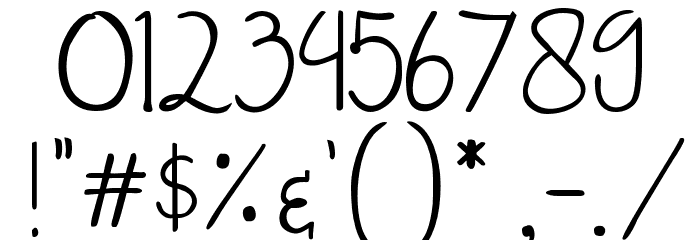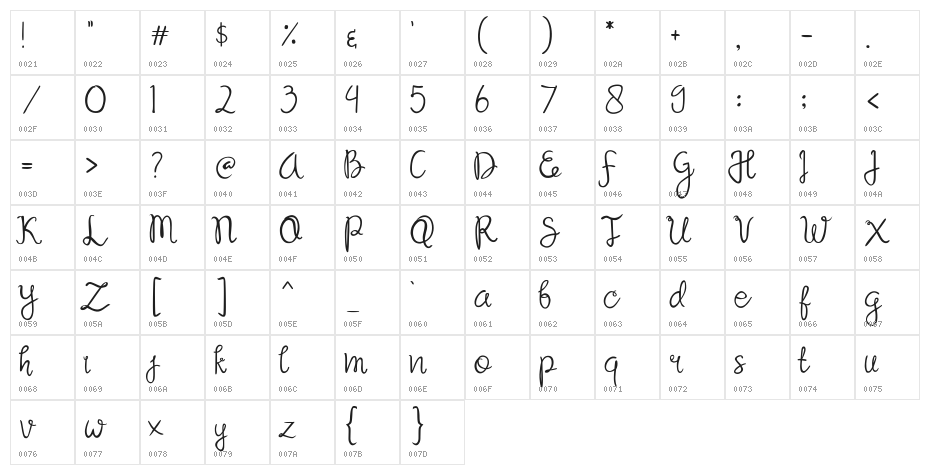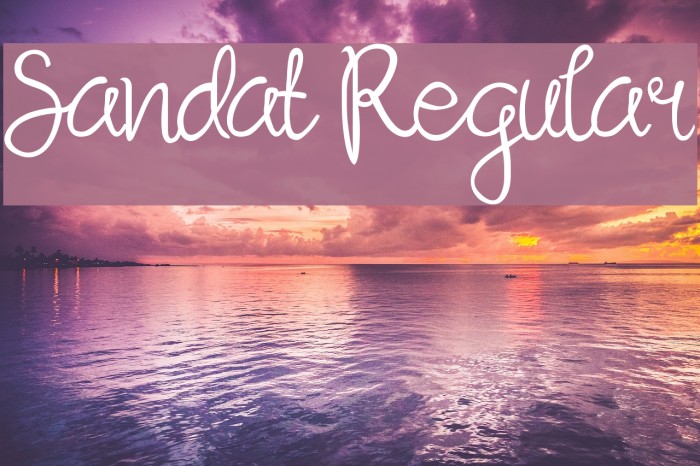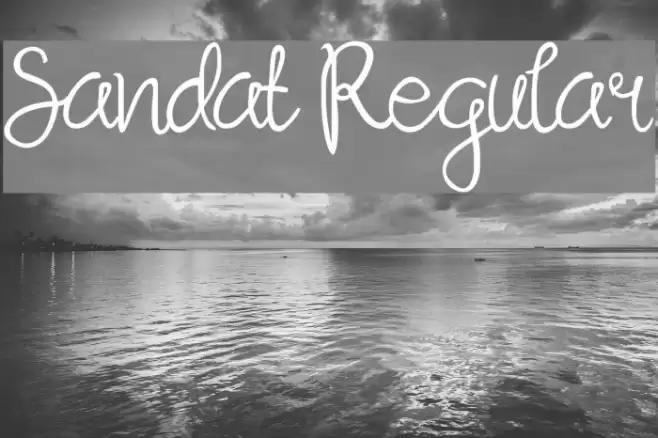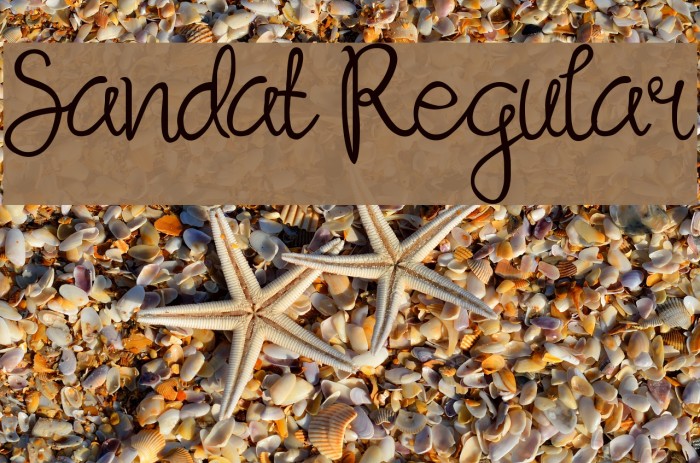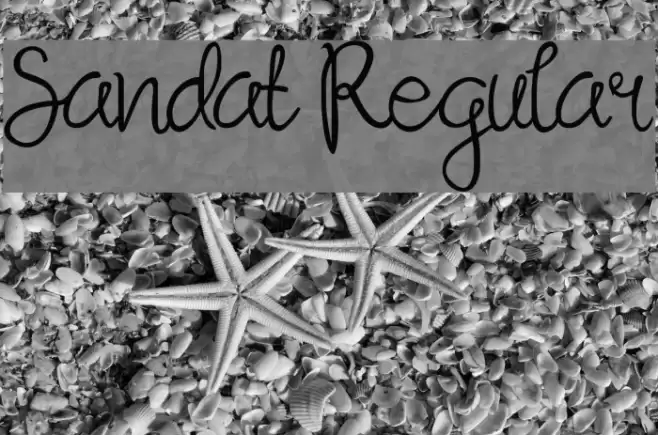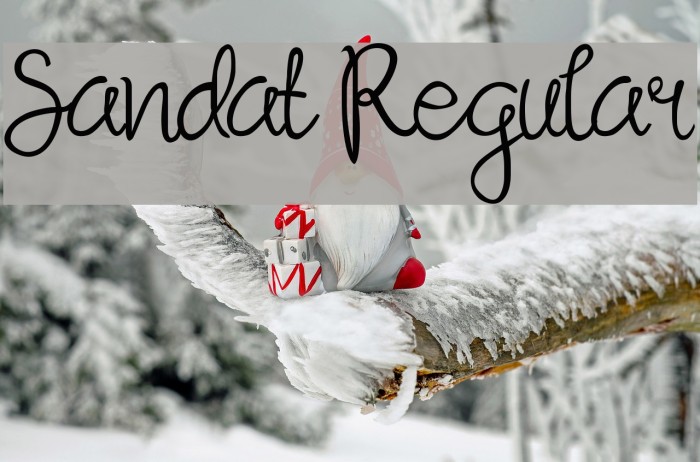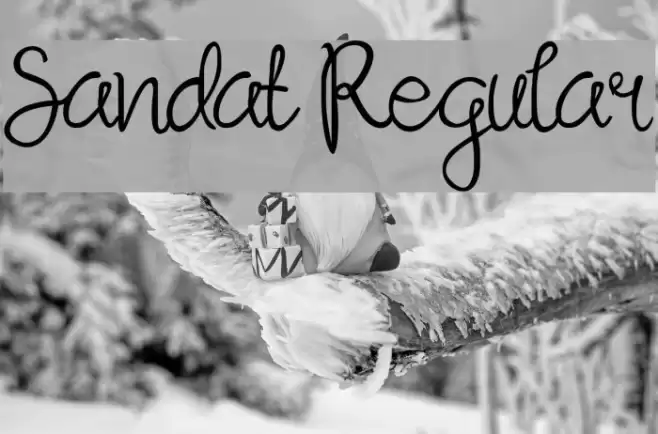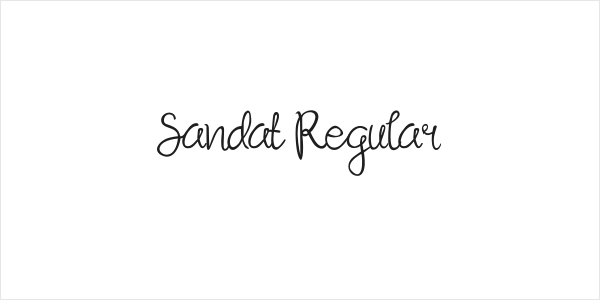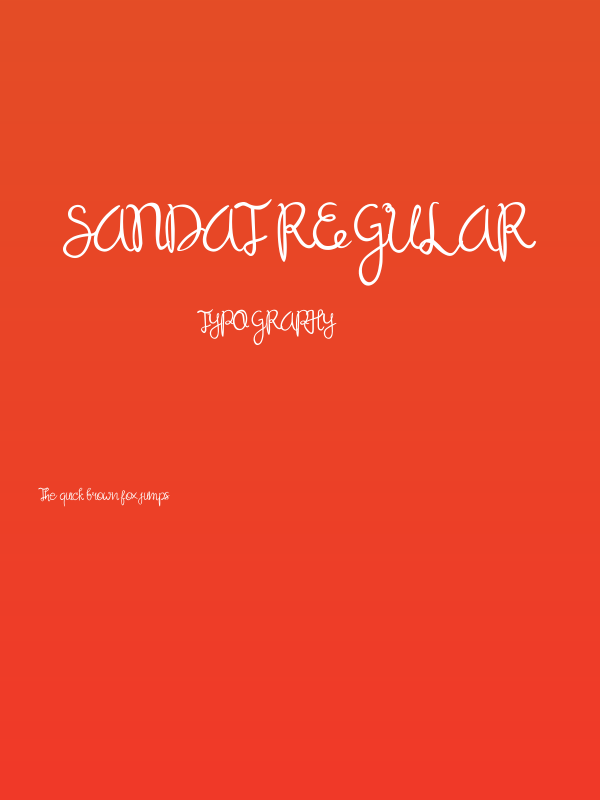
Sandat Regular Font
Sandat Regular Description
This font exudes a playful and whimsical charm with its handwritten style. The letters are fluid and connected, giving it a cursive appearance that is both elegant and casual. The uppercase letters maintain a consistent height, while the lowercase letters vary slightly, adding to the font's dynamic feel. The numbers are clear and easy to read, with a slight slant that matches the overall style. Special characters are included, maintaining the same playful aesthetic. The strokes are consistent in thickness, providing a medium contrast that enhances readability without sacrificing style.
| Proposed Projects | Ideal for greeting cards, invitations, personal branding, and creative projects that require a touch of elegance and personality. |